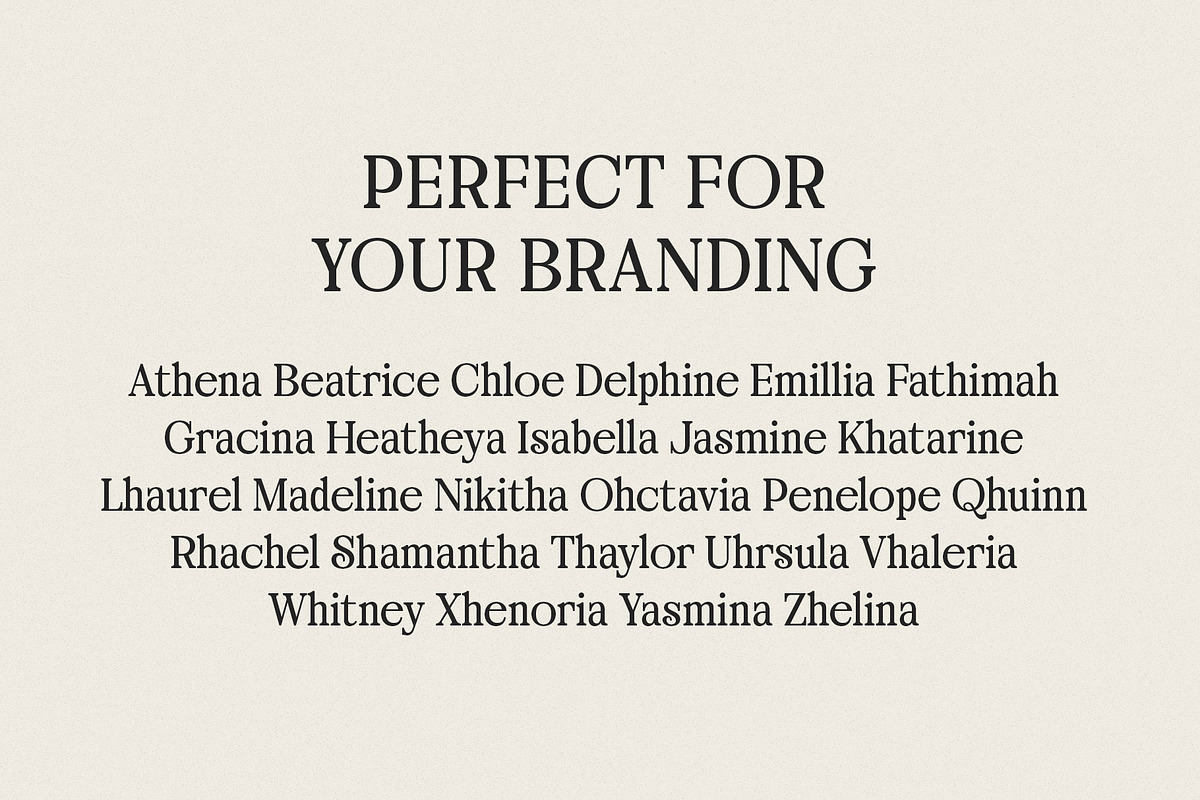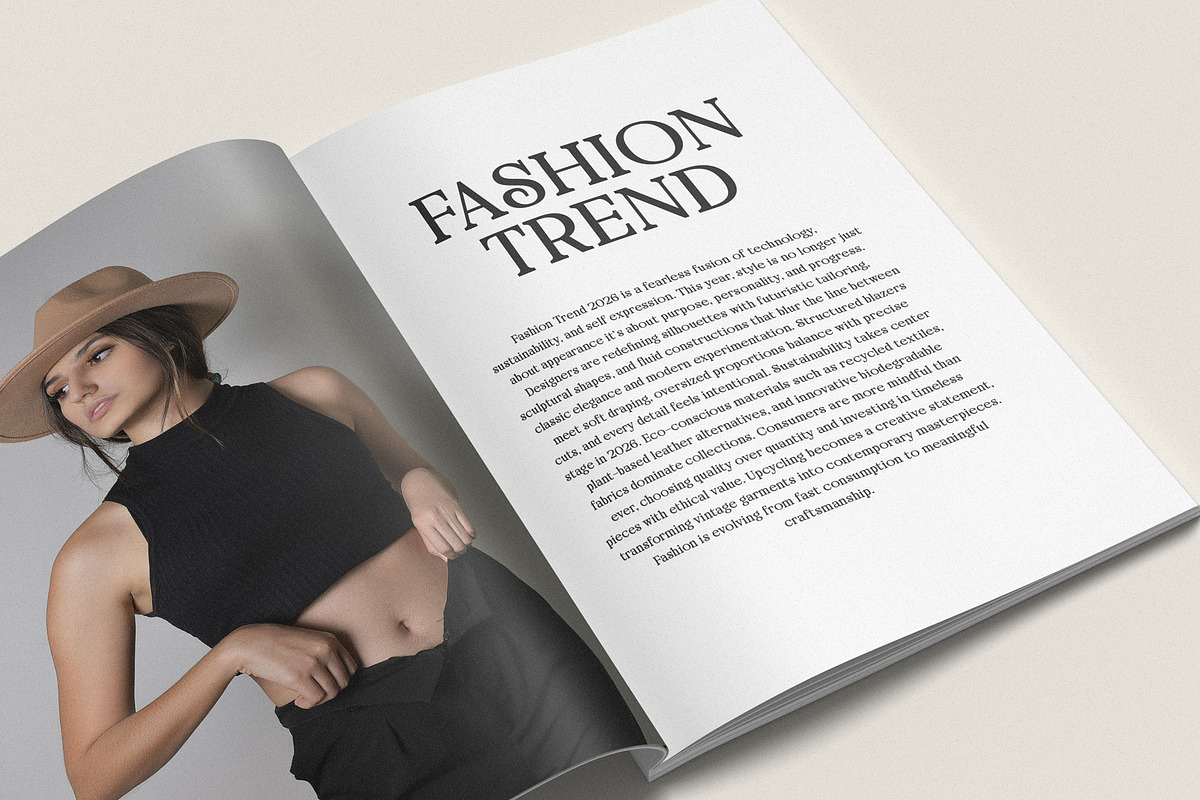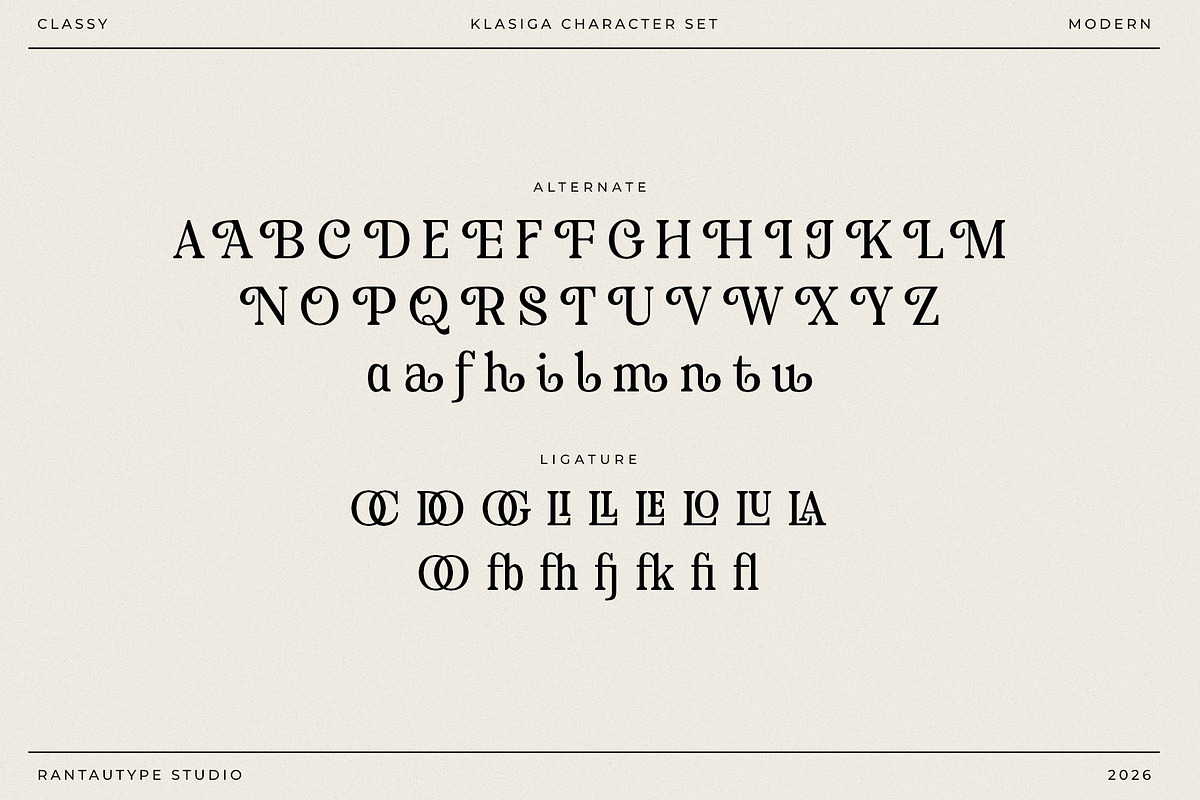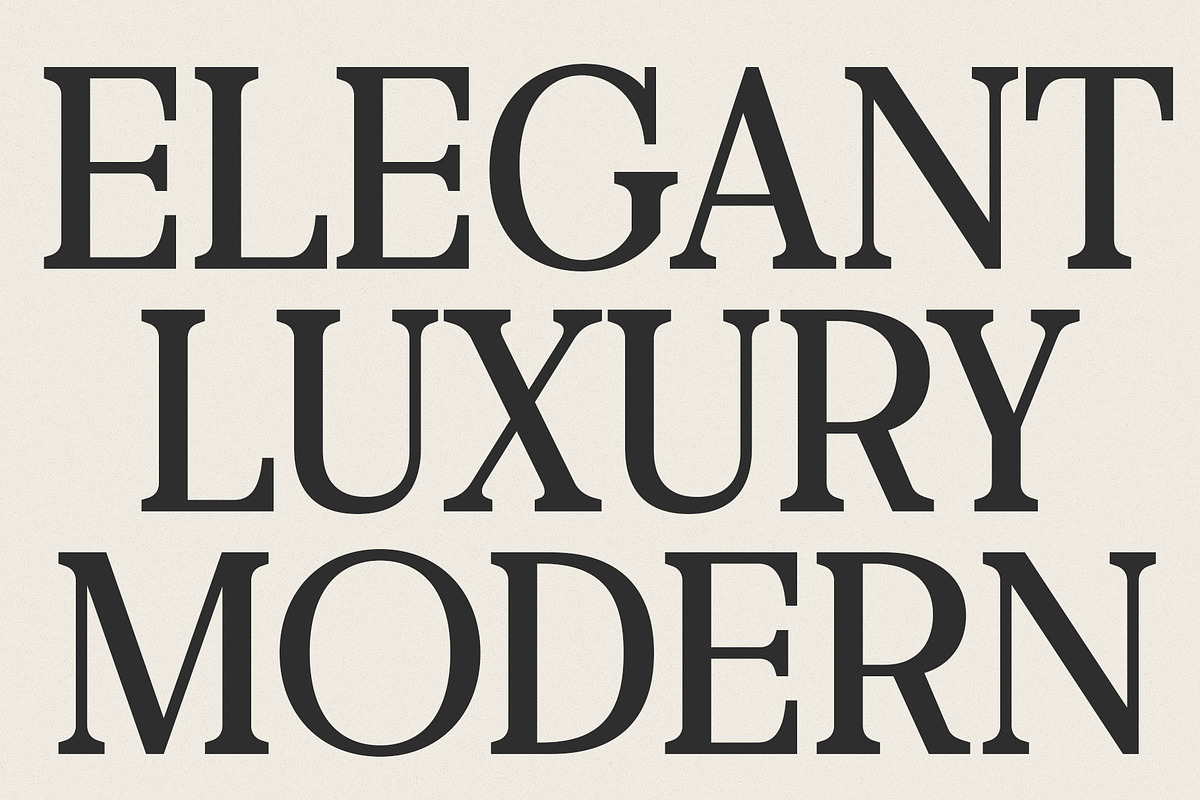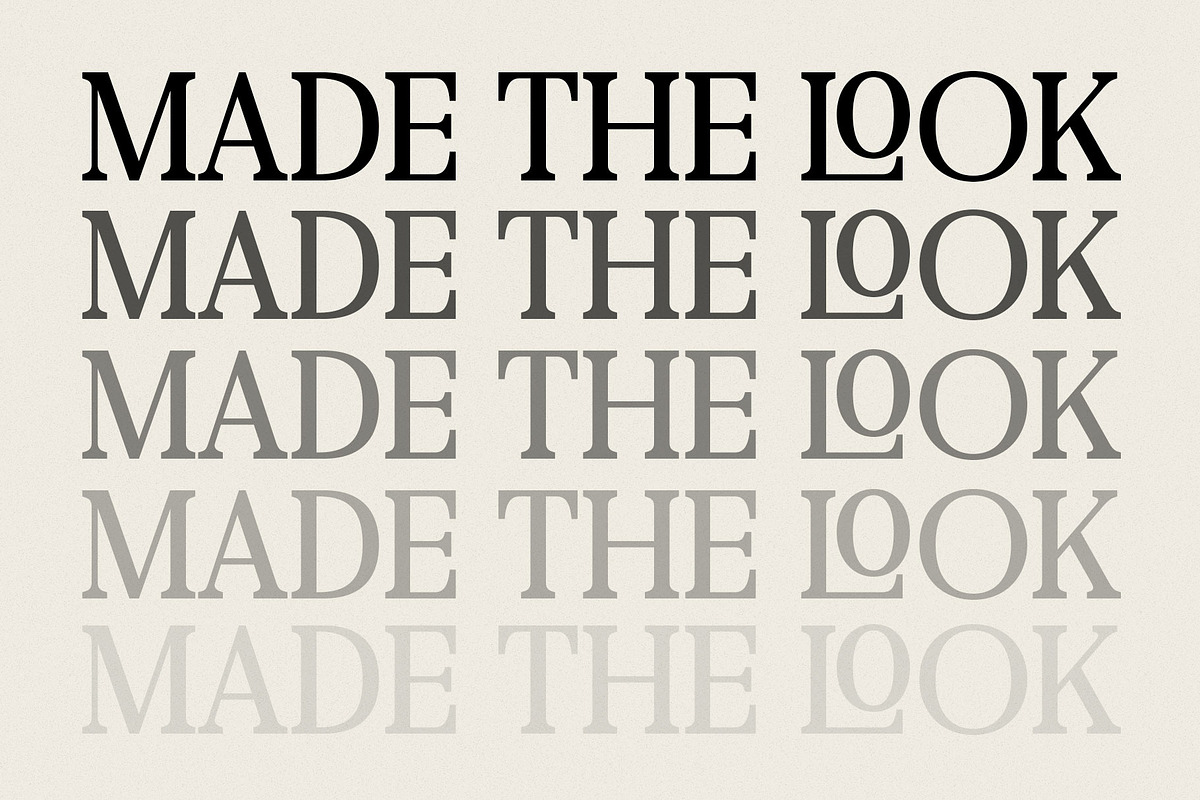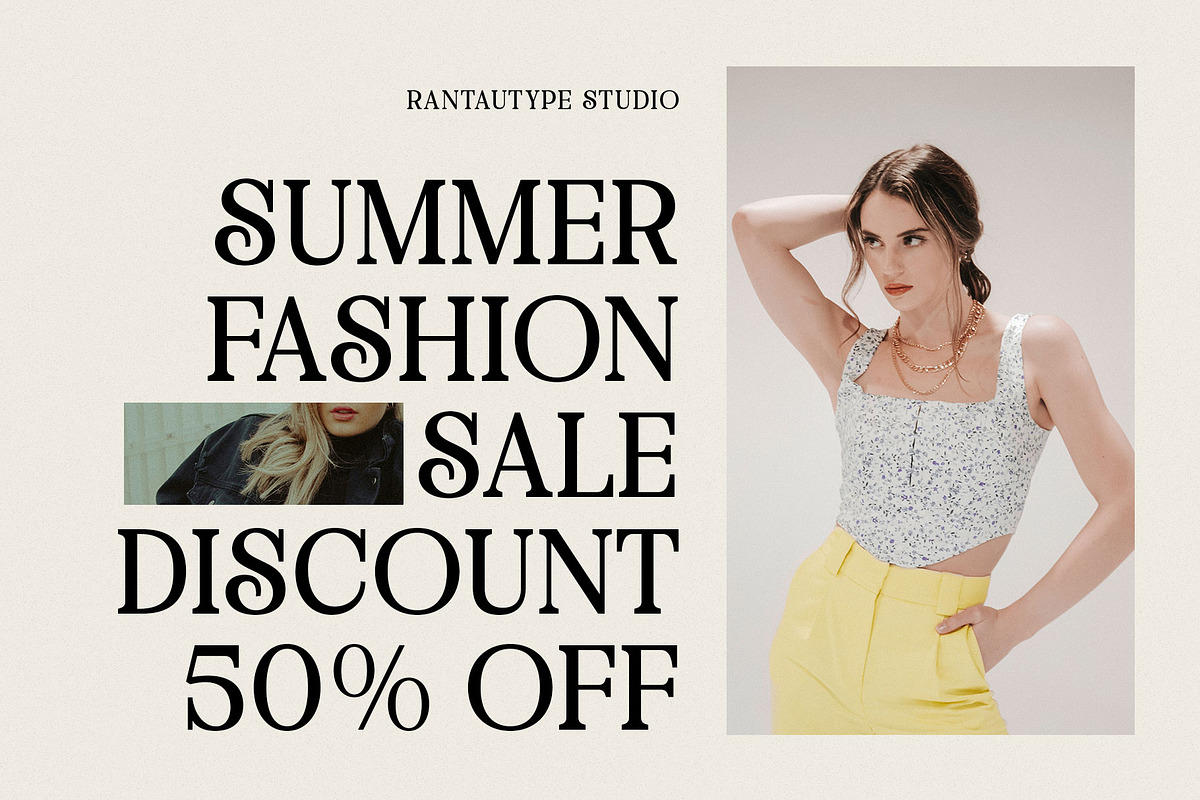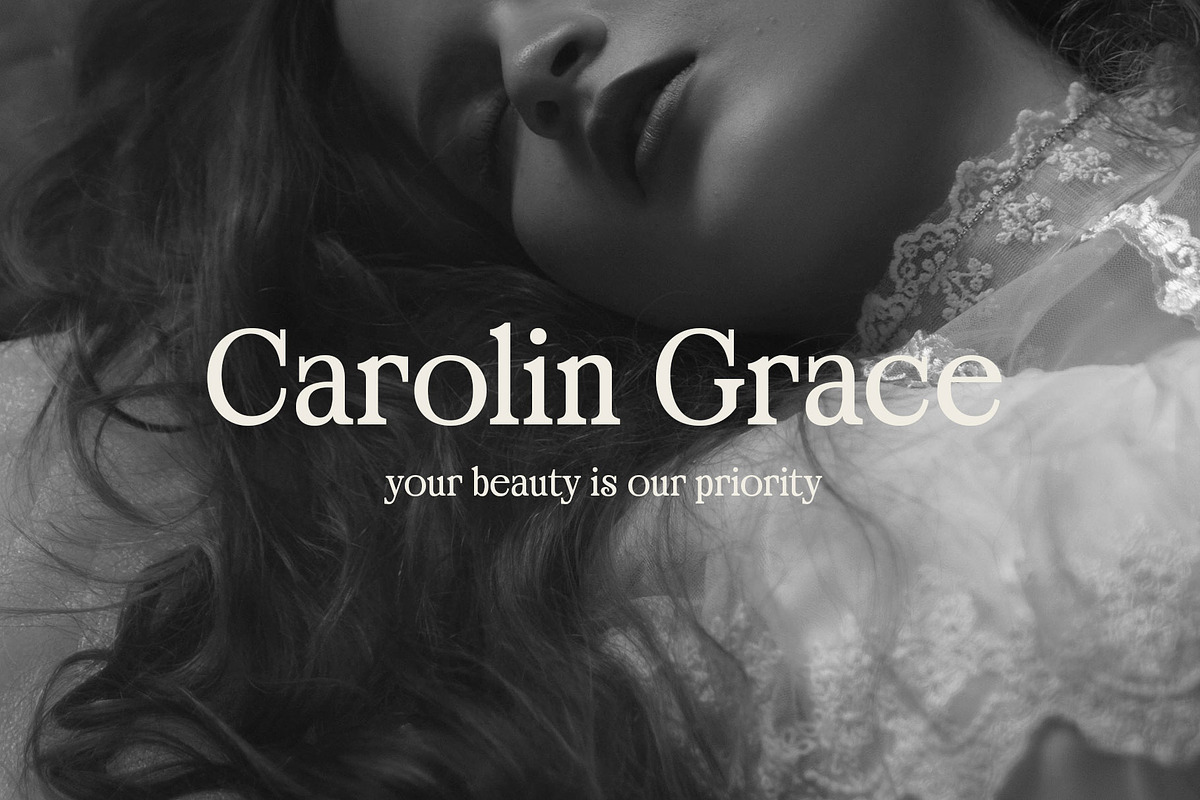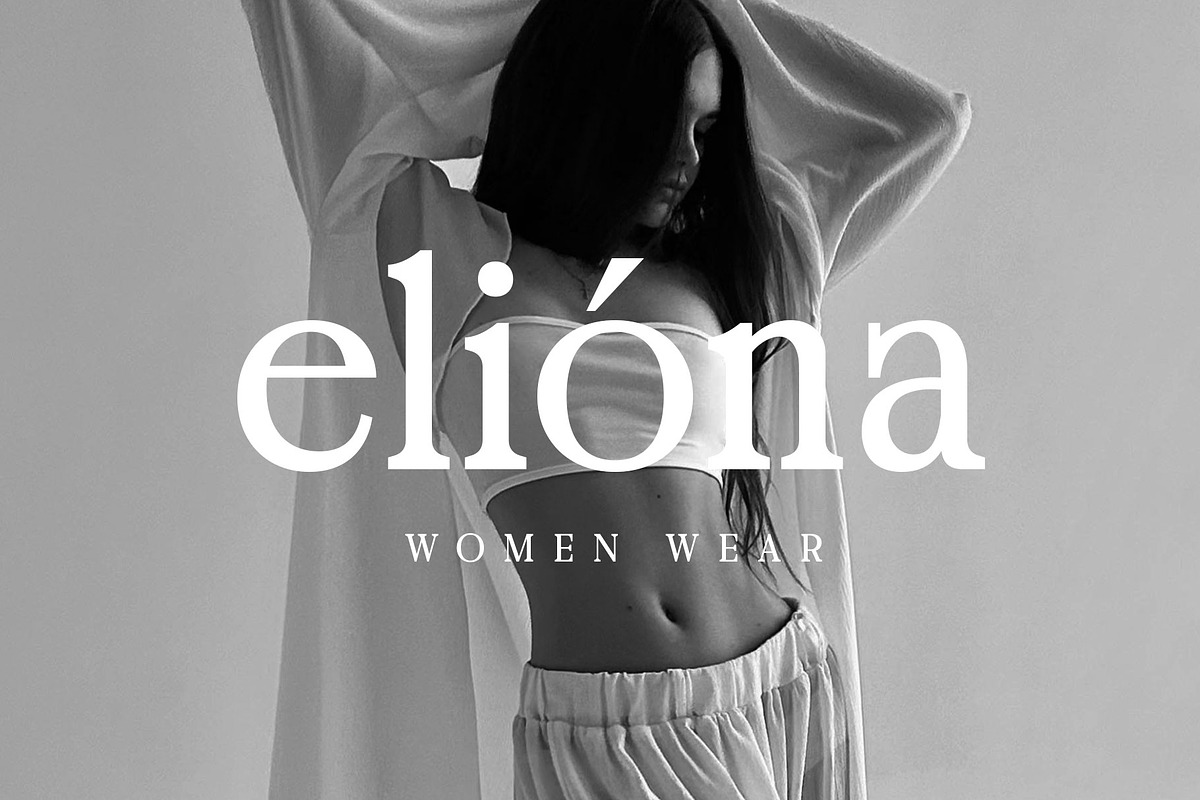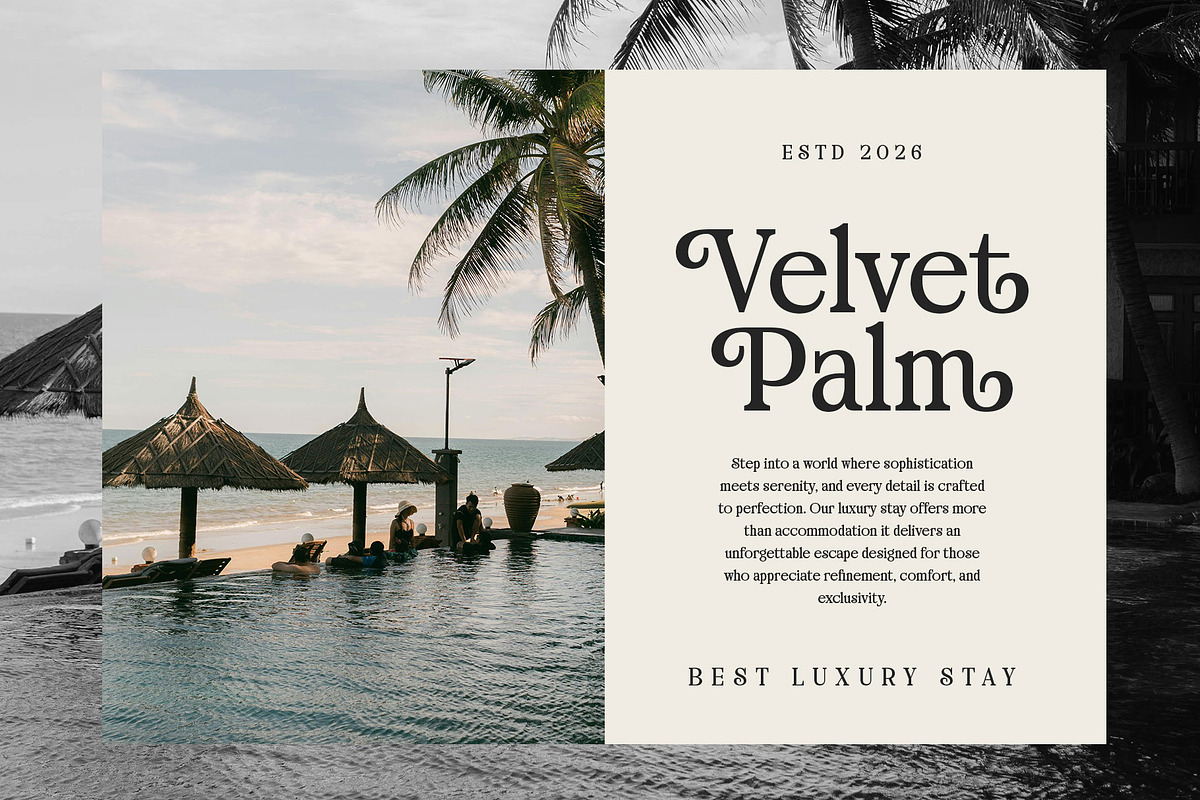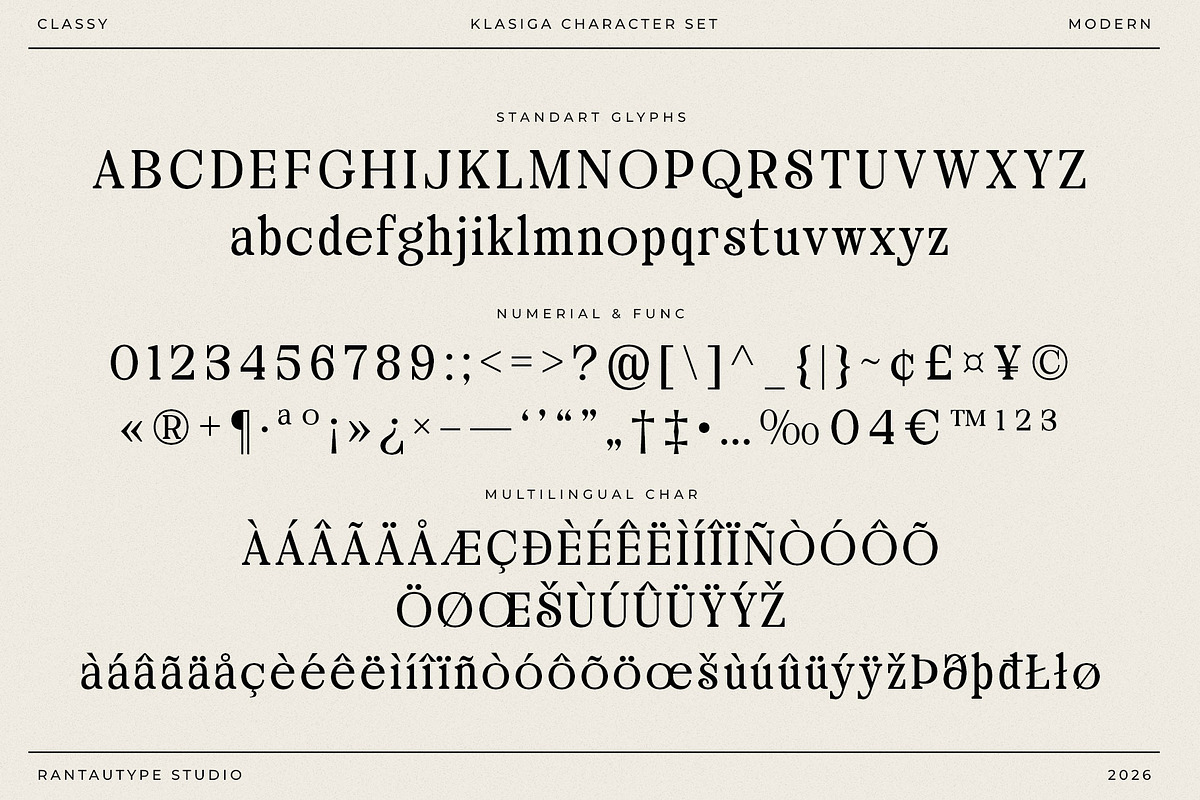
Klasiga Modern Classy Serif Font
Klasiga is modern classy serif font inspire by fashion trend era. Klasiga is a perfectly choice for any creative endeavor, creating, modern, lifestyle design such as logotype, title, cover, branding, invitations, wedding designs, display and magazine, social media posts, advertisements, printed quotes, product packaging, corporate brand, product designs, labels, photography, watermarks, special events and any other project with modern touch.
- Alternate and ligature